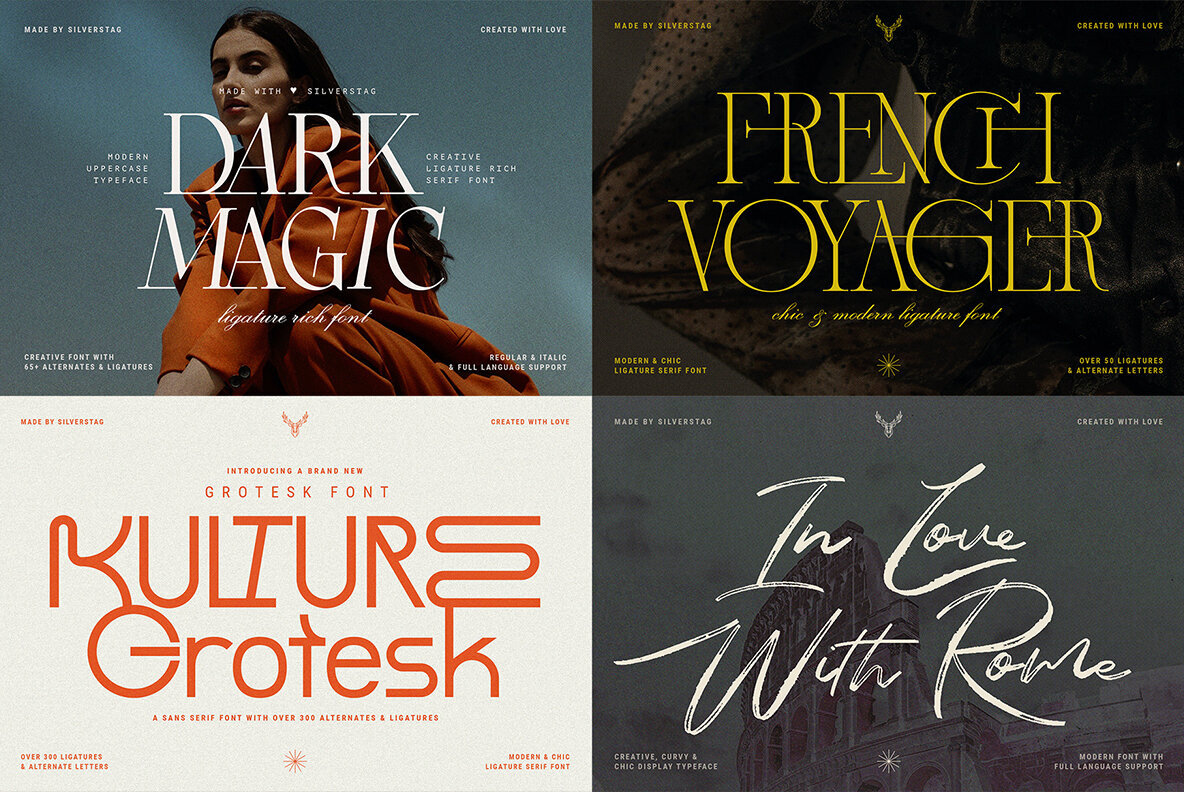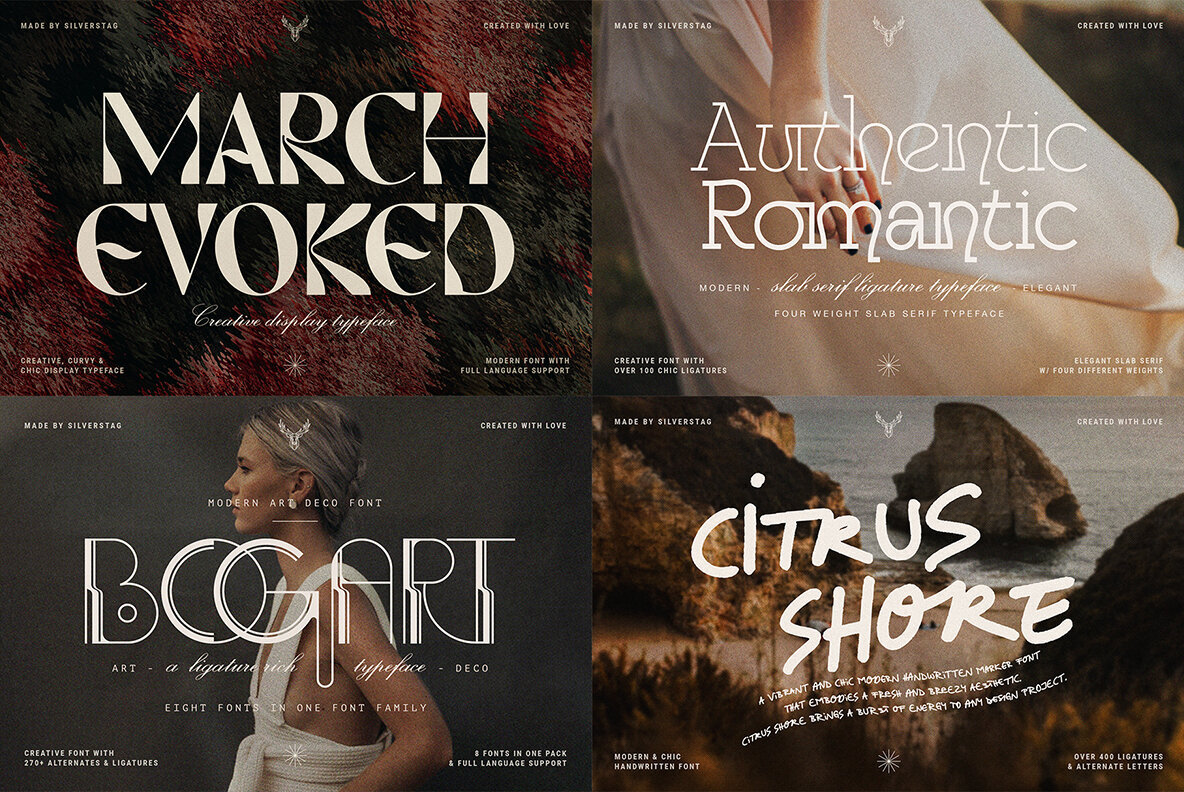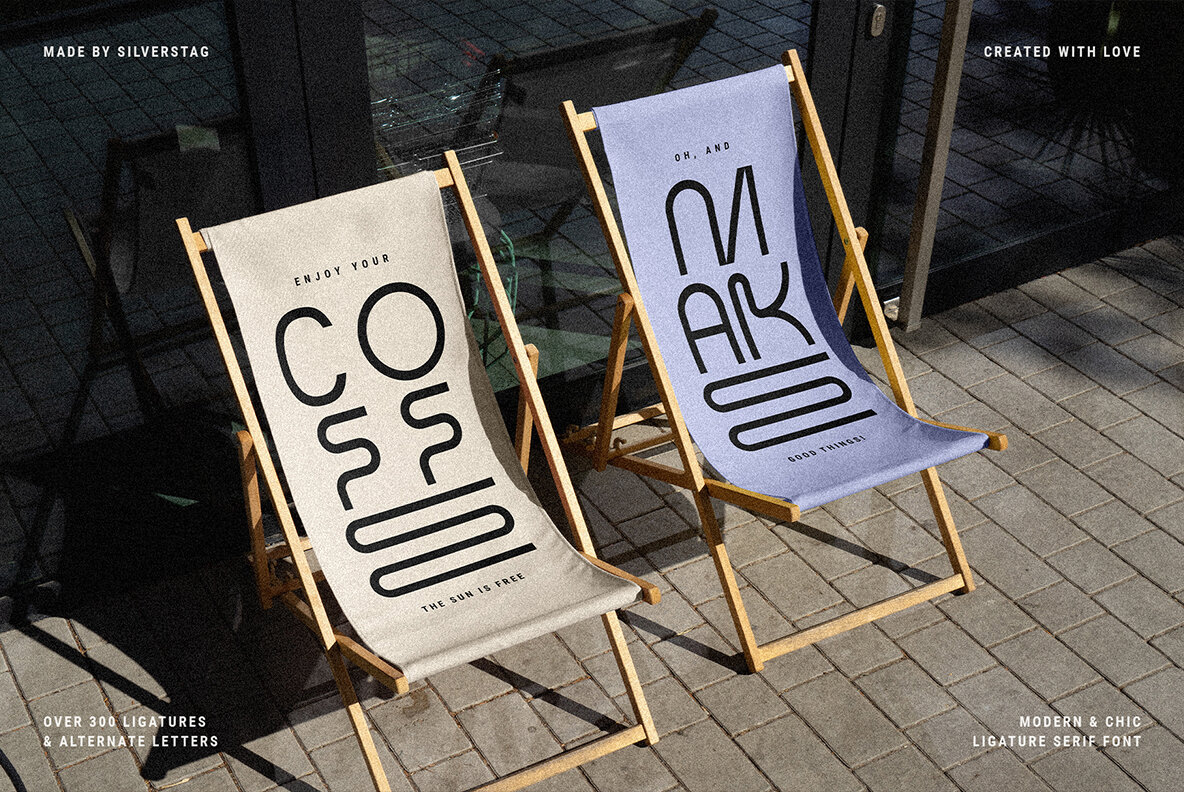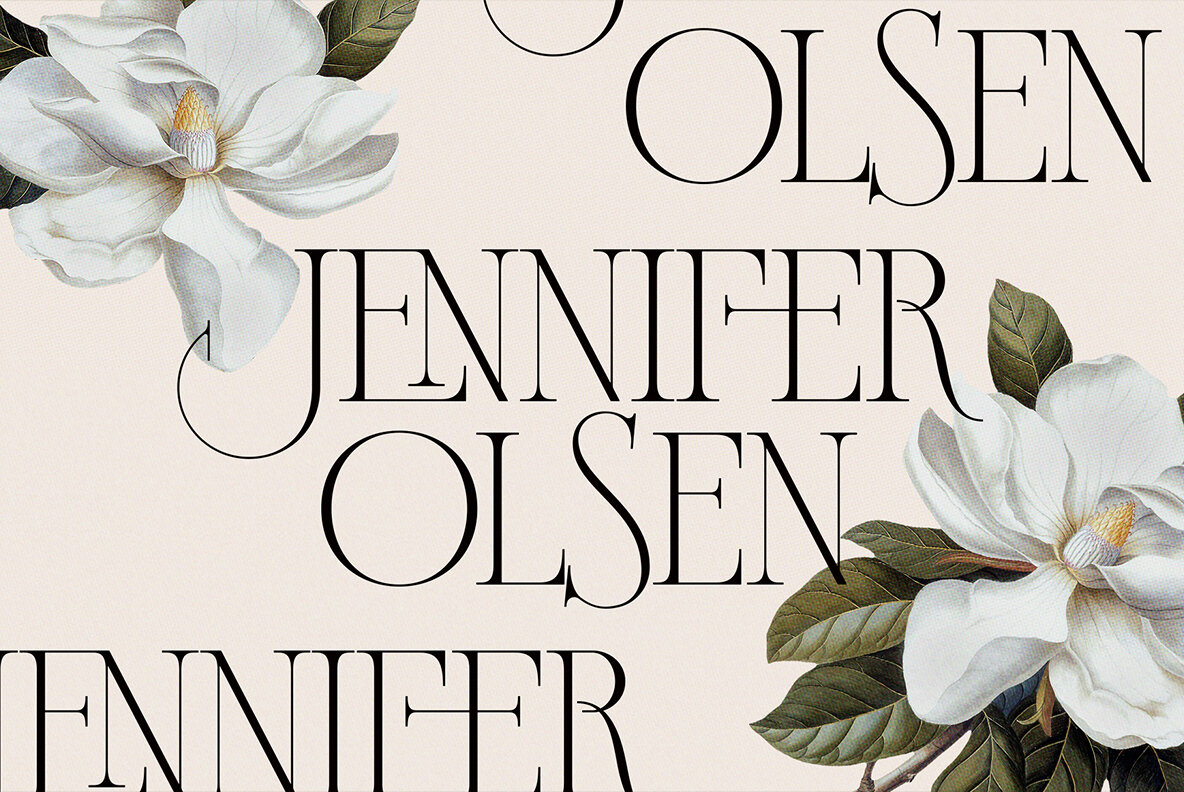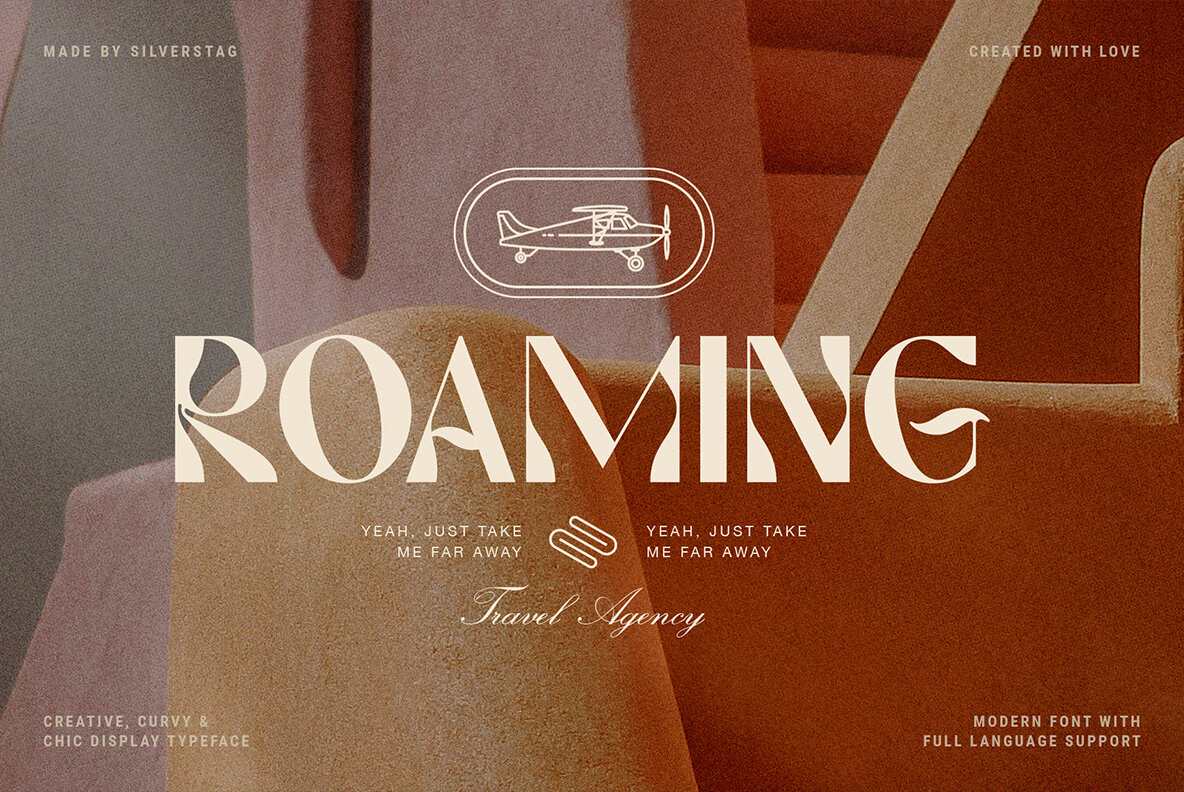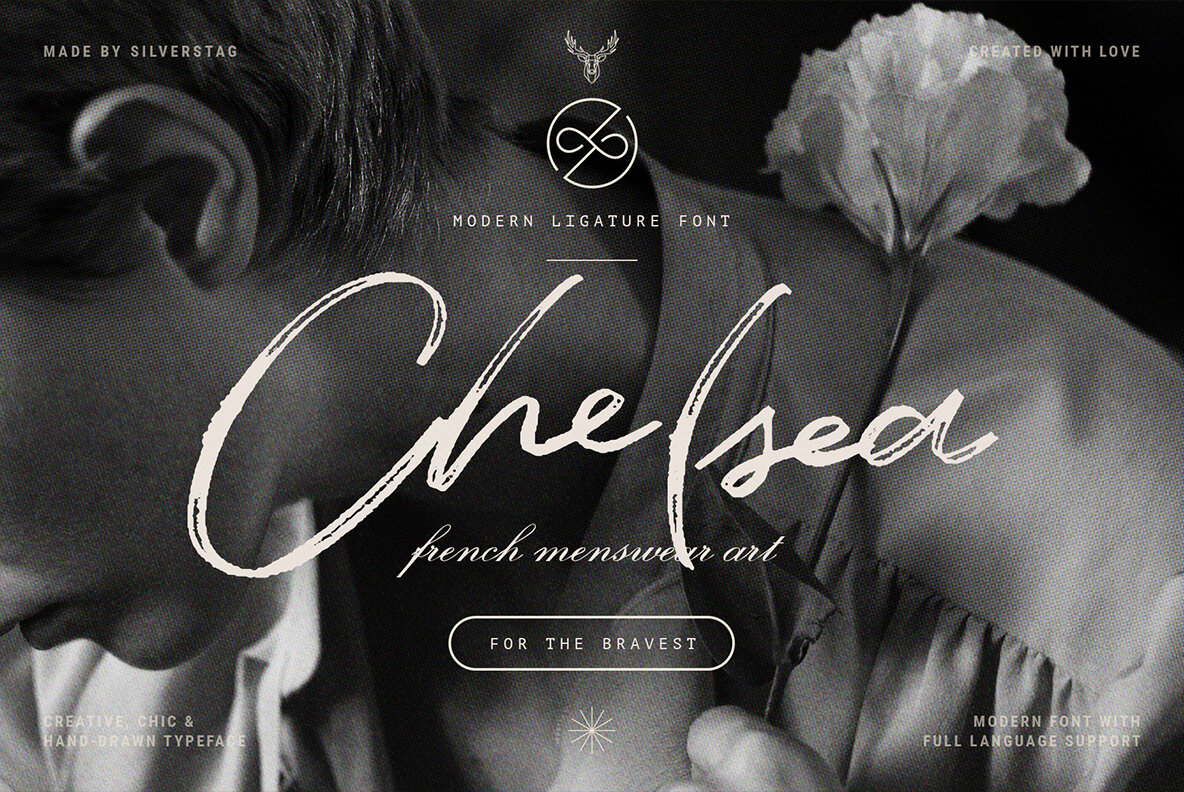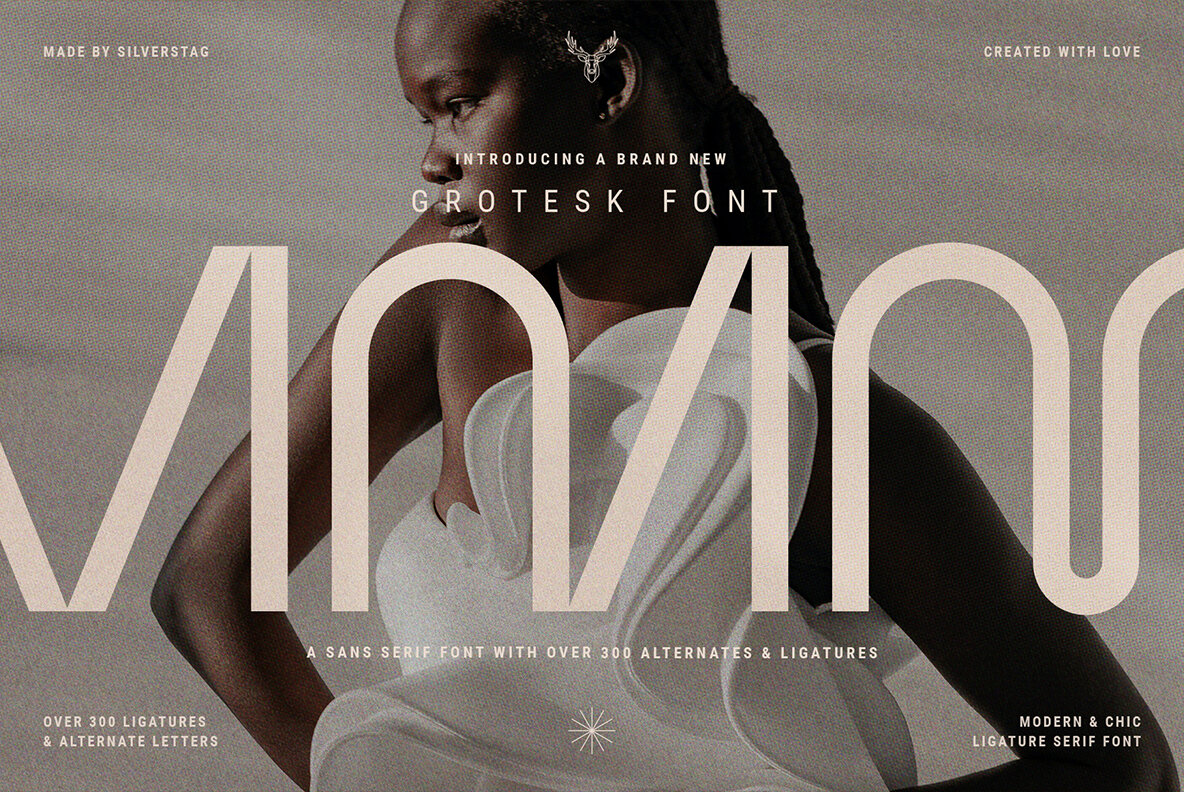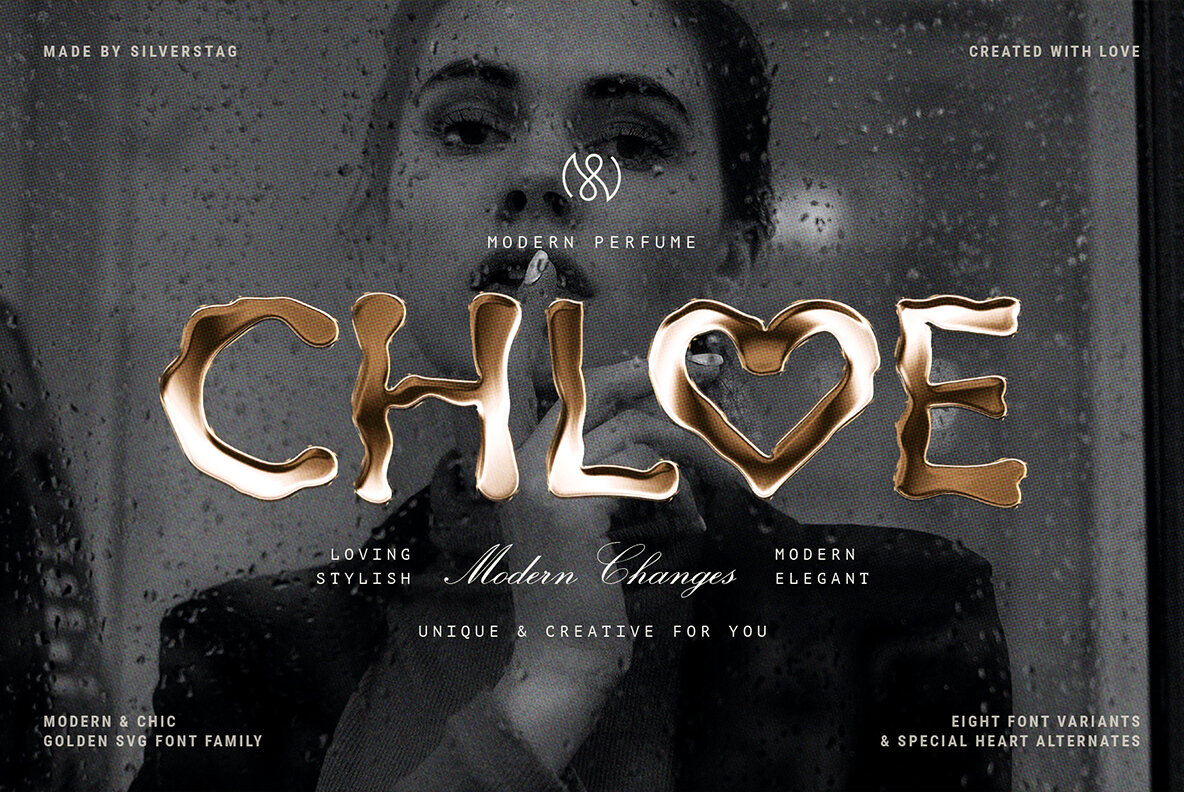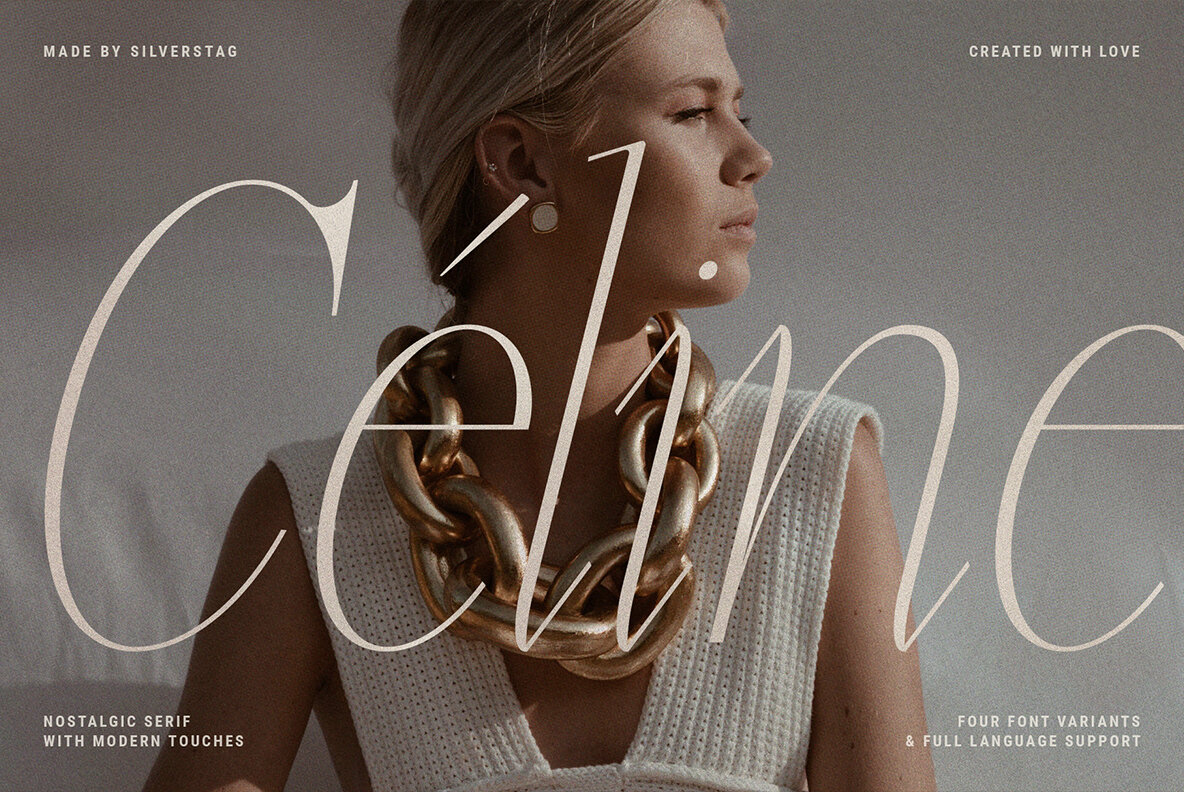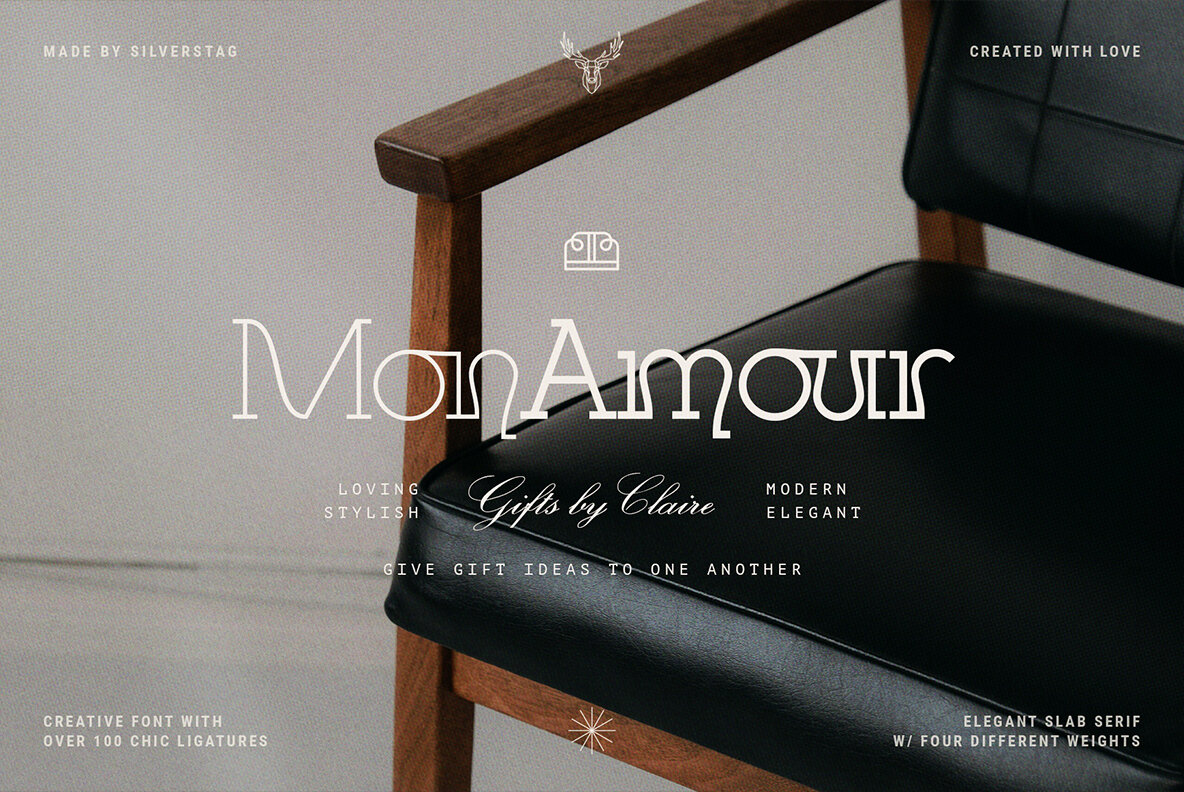
Modern Font Bundle Volume 4
I couldn't be more excited to present Font Bundle Vol 4, a meticulously curated compilation of my latest and most innovative typefaces. As a passionate designer and typography enthusiast, I've poured my creativity and expertise into crafting 12 remarkable fonts that are set to elevate your projects to new heights. With a combined value of over $200, this exclusive bundle is designed to inspire and empower designers, creatives, and businesses alike. From elegant script fonts to bold display typefaces, each font has been meticulously crafted to deliver exceptional quality and versatility. Get ready to infuse your designs with a fresh and contemporary aesthetic that will captivate audiences and bring your visions to life. If you have already purchased one of the fonts from this bundle, just send me a message and I will replace it with any other font from my shop. The products in this pack usually cost over $200 and you can get them all for only $69, that is a huge discount more than 65%! To use the watercolour SVG fonts you will need Photoshop CC 2017, Illustrator CC 2018, or Procreate 4.3 (or newer), however, serif and regular scripts don’t require any specific software and can be used on any computer and in any software. Illustrator CC 2017, Photoshop CC 2015 and older versions DO NOT support color fonts. In these apps, you will see a non-colored fallback version of the font.